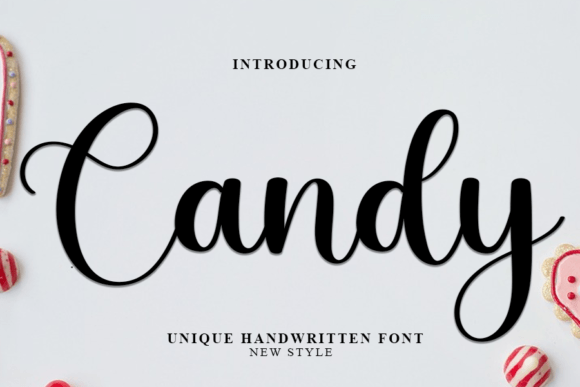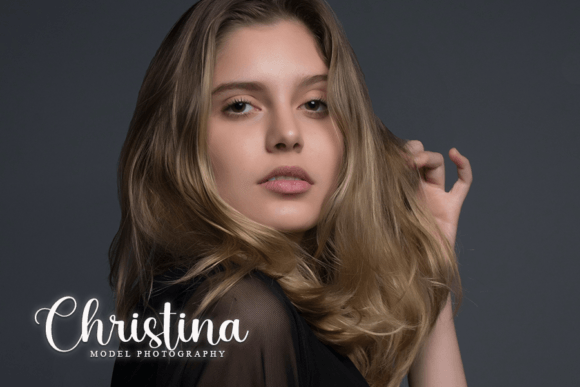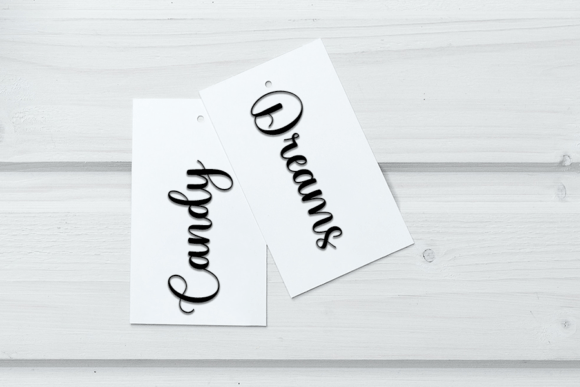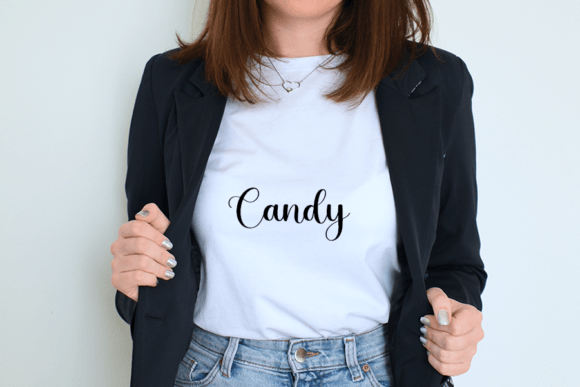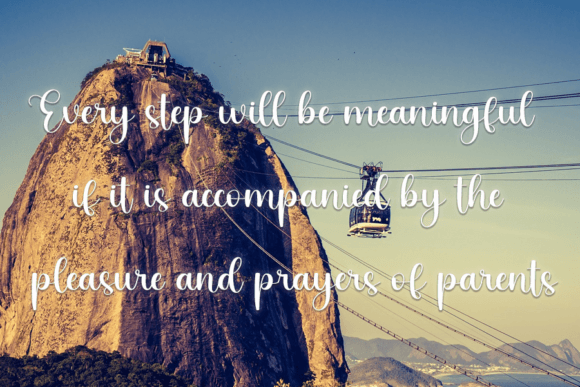
Add a Sweet Touch with Candy Handwritten Font
The Candy Handwritten Font is a charming and delicately crafted typeface designed to bring a sweet and unique feel to your creative projects. With its hand-drawn appeal and smooth letterforms, this font is ideal for designers looking to add a touch of playfulness and elegance to their work.
Whether you’re designing invitations, food packaging, or personalized letters, Candy makes every word feel delightful and full of character.
Perfect for Invitations, Labels, and Greeting Cards
Candy’s playful elegance makes it an excellent choice for a wide range of projects. Its friendly tone and soft curves shine in wedding or party invitations, baby shower cards, and thank-you notes. The handwritten style brings a personal feel that resonates with emotion and care.
In the world of product design, Candy is a great fit for food packaging, labels, and boutique branding. Its stylish yet readable form helps communicate quality and creativity, especially for artisanal goods or homemade treats.
Handcrafted Letters That Speak with Personality
Each letter in the Candy font feels lovingly created, with a natural flow that mimics real handwriting. This makes it ideal for personal messages, custom quotes, and social media captions where authenticity is key.
Even though it’s decorative in style, Candy remains legible and balanced. Its spacing and form make it comfortable to read, whether used for a short phrase or an extended message.
Beautiful Results in Both Print and Digital Designs
From print-ready invitations to Instagram graphics, Candy performs consistently across various platforms. The font retains its softness and detail in high-resolution printing and digital formats alike.
Pair Candy with a clean sans-serif or serif font for stunning contrast. This combo is great for headlines and subtext, giving your design a polished yet whimsical finish.
Why Creatives Love Candy Handwritten Font
Here’s why Candy stands out:
A delicate, hand-drawn style with a sweet, approachable look
Ideal for greeting cards, food branding, and personal notes
Smooth flow and balanced spacing for excellent readability
Versatile enough for both print and web use
Adds warmth and charm to every project
Make Every Design Sweeter with Candy
In conclusion, the Candy Handwritten Font is your go-to choice when you want to blend playfulness with elegance. Its handcrafted style, delicate curves, and sweet tone make it perfect for designers looking to create warm, memorable, and stylish content.
Let Candy bring a joyful personality and charming aesthetic to your next project.